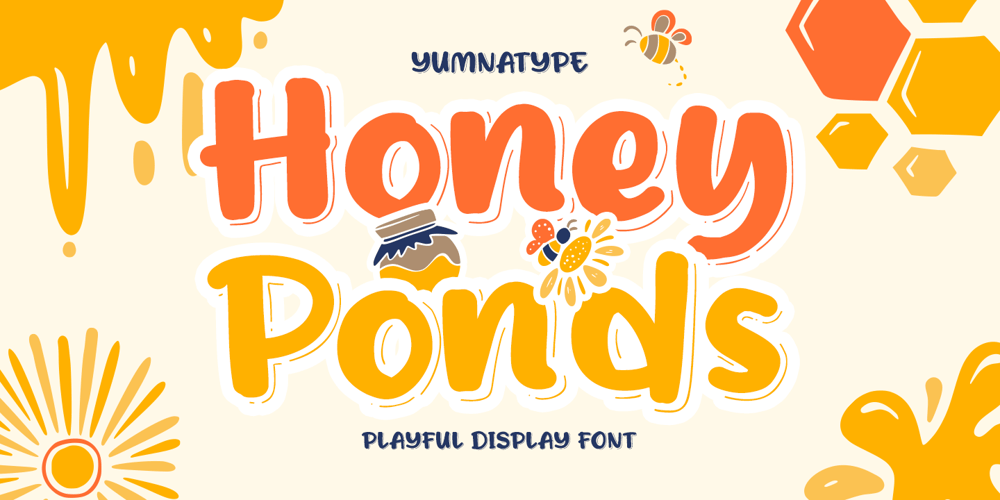
Honey Ponds Font Family was designed by Donis Miftahudin and published by Yumna Type. Honey Ponds contains 2 styles and family package options. It is complicated to find an aesthetically charming font in a professional look. The thing is that a wrong font choice can damage your projects. For that reason, Honey Ponds is here for your needs.Honey Ponds is a simple display font in a plain, yet interesting, professional design. To create a better display and to be legible, the font’s form or geometry is presented in a simple style without many details. Additionally, this font provides you a clipart as a bonus. You can enjoy the available features here as well. Features: Multilingual Supports PUA Encoded Numerals and Punctuations Honey Ponds fits best for various design projects, such as brandings, posters, banners, headings, magazine covers, quotes, invitations, name cards, printed products, merchandise, social media, etc. Find out more ways to use this font by taking a look at the font preview.Thanks for purchasing our fonts. Hopefully, you have a great time using our font. Feel free to contact us anytime for further information or when you have trouble with the font. Thanks a lot and happy designing.